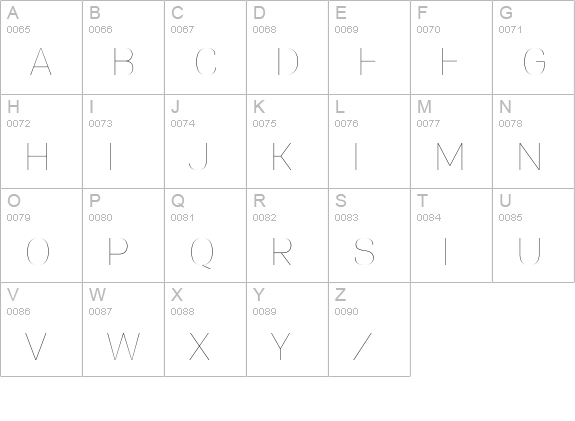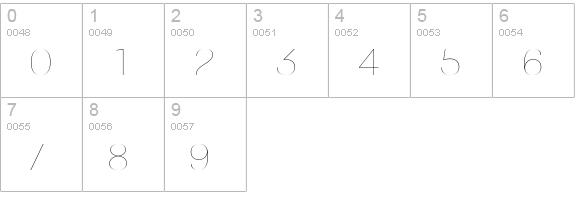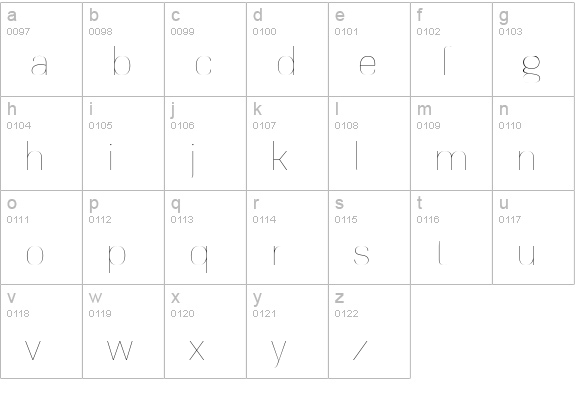
PFEncoreSansPro-UltraThin font is a sleek and modern typeface that exudes elegance and sophistication. With its ultra-thin strokes and clean lines, this font is perfect for creating a minimalist and contemporary look in your designs. The delicate weight of the letters adds a touch of refinement and style to any project. What's even better is that PFEncoreSansPro-UltraThin font is available for free download at FontsMarket.com. Whether you are designing a poster, logo, or branding materials, this font will elevate your work to the next level with its unique and eye-catching appearance. Don't miss out on the opportunity to enhance your designs with this stunning font for free!